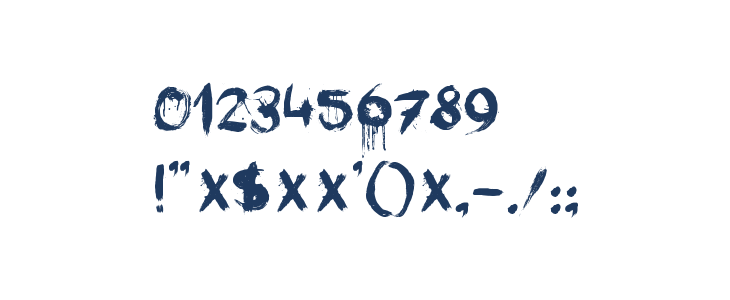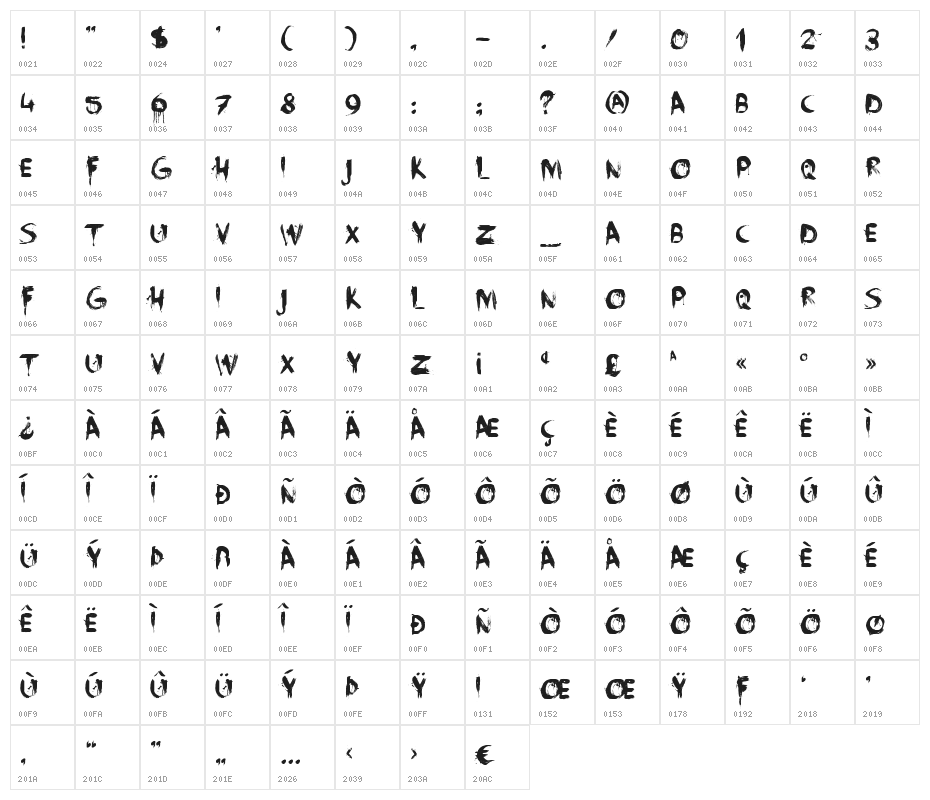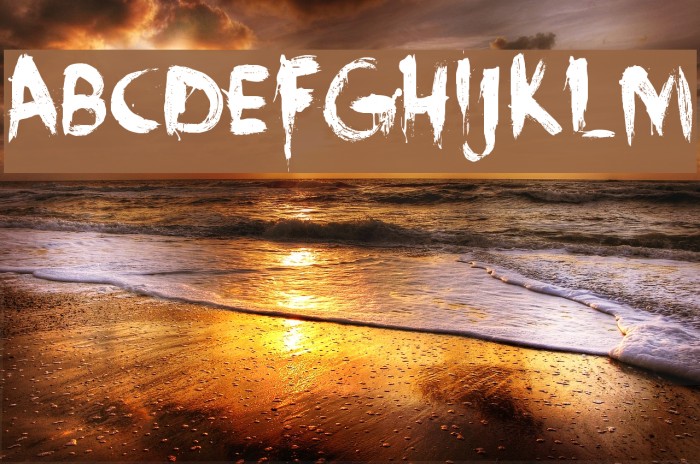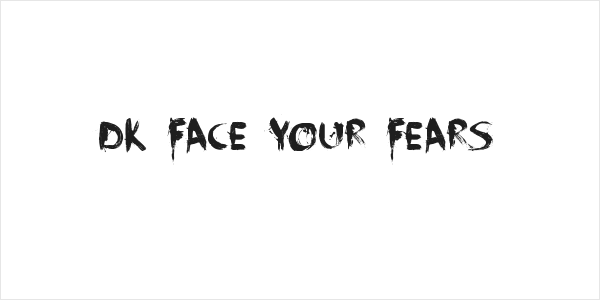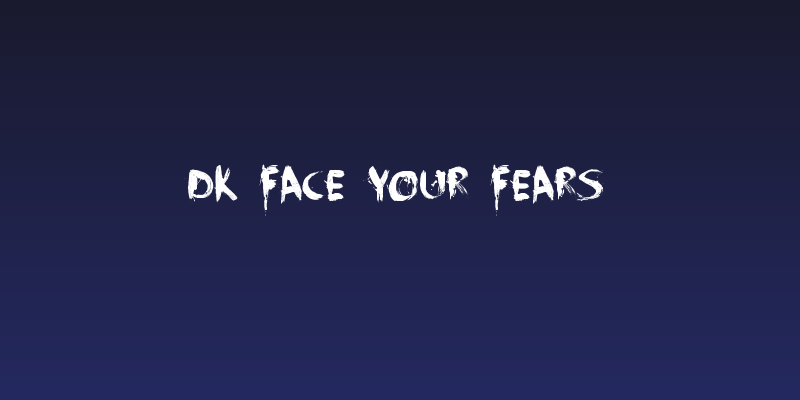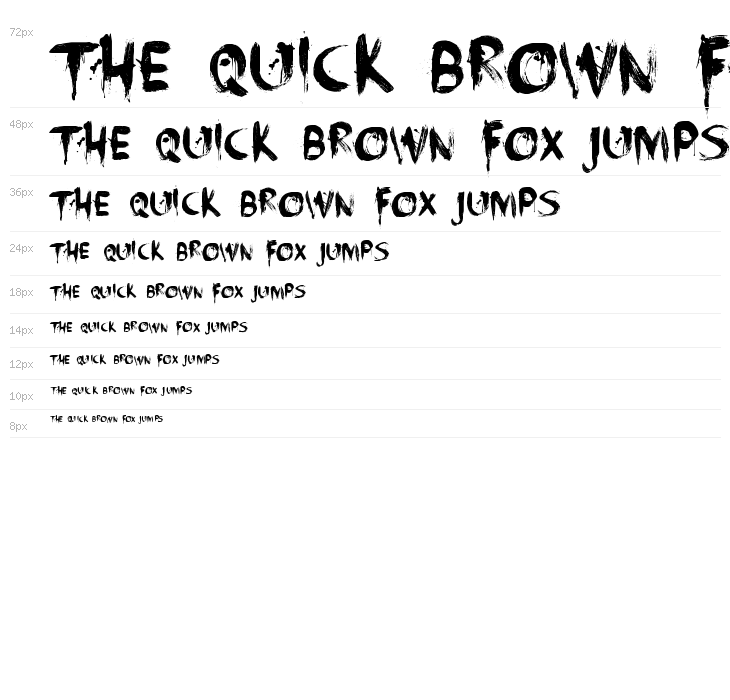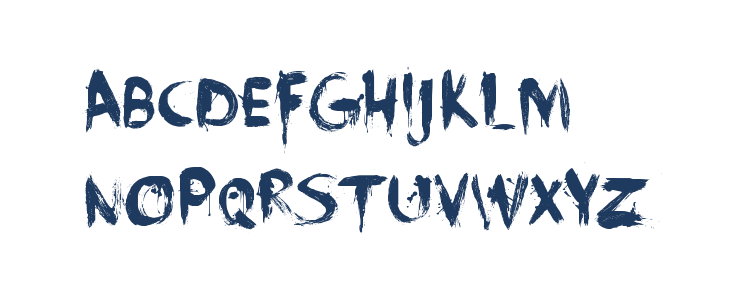
DK Face Your Fears Font
DK Face Your Fears Description
This font features a bold, distressed style that evokes a sense of horror and suspense. The characters are irregular and jagged, resembling brush strokes or splatters, which adds to its eerie and unsettling appearance. The uppercase and lowercase letters maintain a consistent theme, with each character appearing as if it has been hastily painted or scratched. The numbers and special characters follow the same aesthetic, ensuring a cohesive look across all elements. This font is ideal for projects that require a dramatic and intense visual impact.
| Proposed Projects | Ideal for horror movie posters, Halloween event flyers, video game titles, and any project requiring a dramatic, eerie aesthetic. |